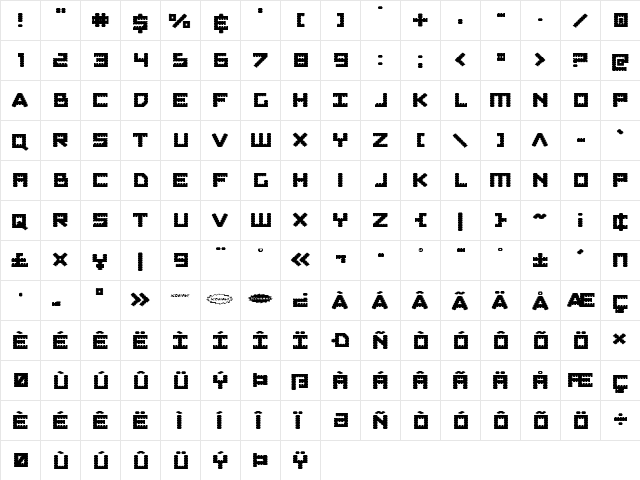
Obsidian Blade Expanded Expanded
Design Context for Obsidian Blade Expanded Typeface
Obsidian Blade Expanded is a composed and adaptable typeface that performs quietly and consistently across a wide range of design contexts.